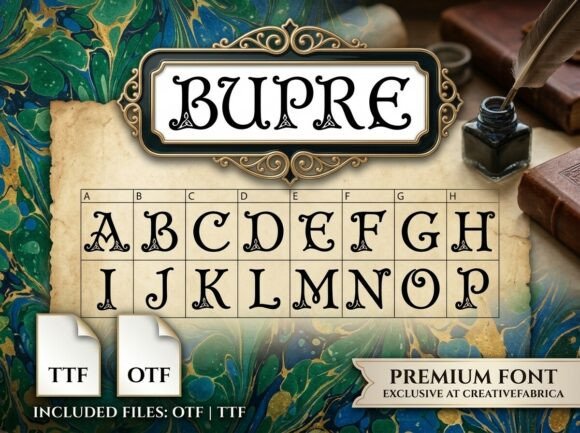
Uncover the mysticism of the ancient world with Bupre, a spellbinding display serif that captures a “mythic-and-monumental” soul.
This font features bold, high-contrast letterforms uniquely characterized by rhythmic, hand-drawn “Celtic knot” terminals and intricate triquetra-inspired flourishes that bridge the gap between historical insular script and modern fantasy branding With its heavy structural weight and legendary personality, Bupre is the premier choice for independent artisanal mead labels, tabletop RPG sourcebooks, heritage-themed apparel, and high-impact “folkloric-and-formidable” social media headers.